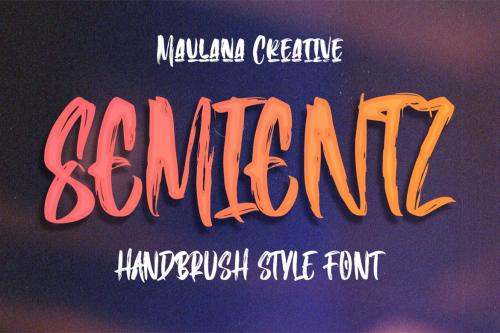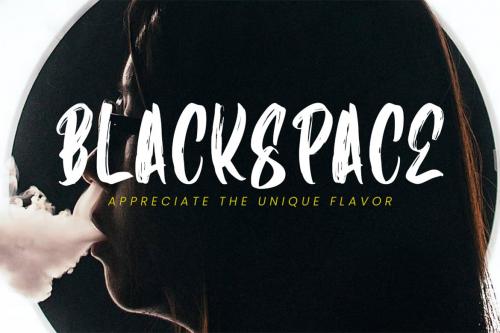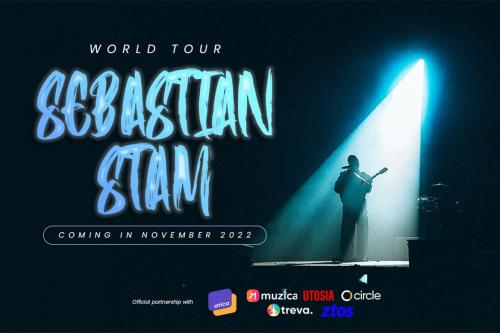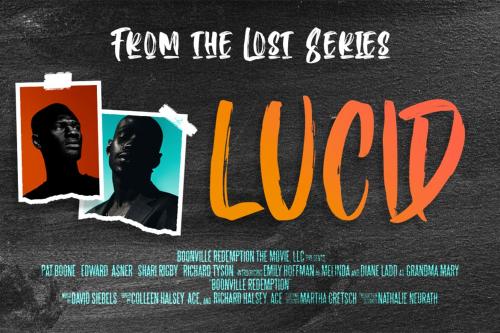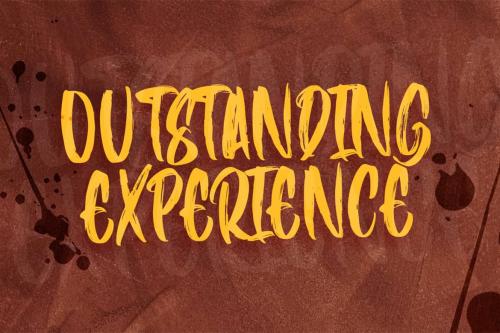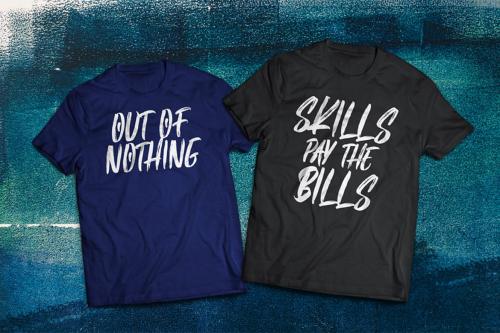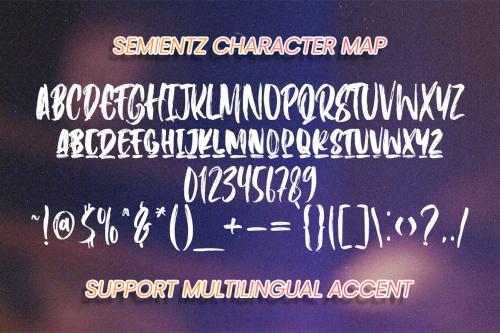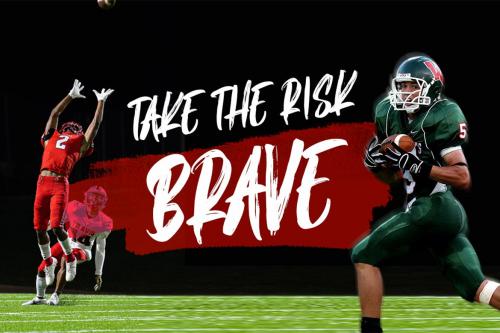
半米真手绘风格字体
Semientz Handbrush Style Font
Semientz Rought Font offers a bold character with subtle ligatures and alternate glyphs, providing an opportunity for enhanced creativity. Crankstock font is equipped to support over 100 languages, making it versatile for various design projects such as logos, social media posts, movie titles, book titles, short or long text passages, and secondary text with a signature touch. Elevate your work with the impressive Semientz font.
Semientz Rought Font . Strong character with a bit of ligatures and alternates. To give you an extra creative work. Crankstock font support multilingual more than 100+ language. This font is good for logo design, Social media, Movie Titles, Books Titles, a short text even a long text letter and good for your secondary text font with Signature. Make a stunning work with Semientz font.